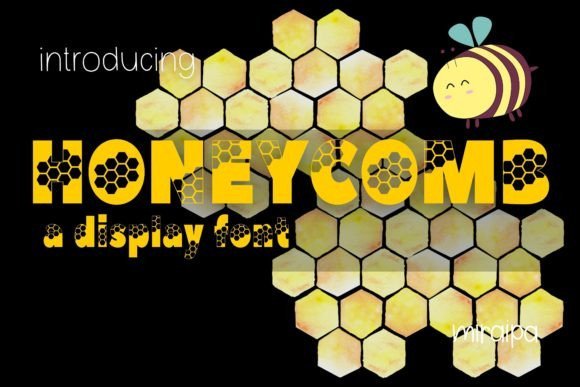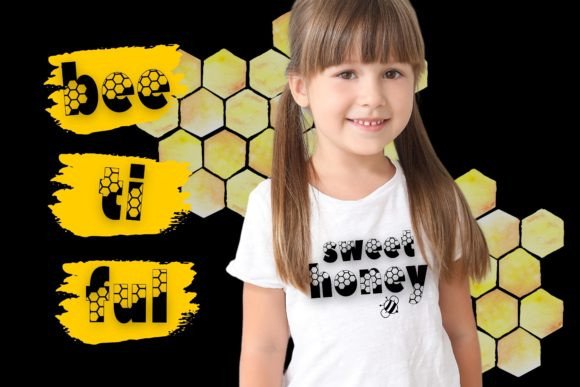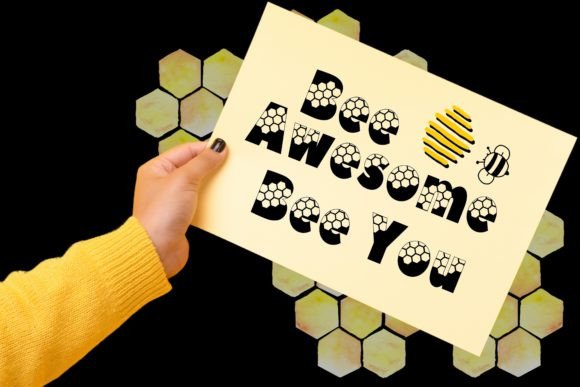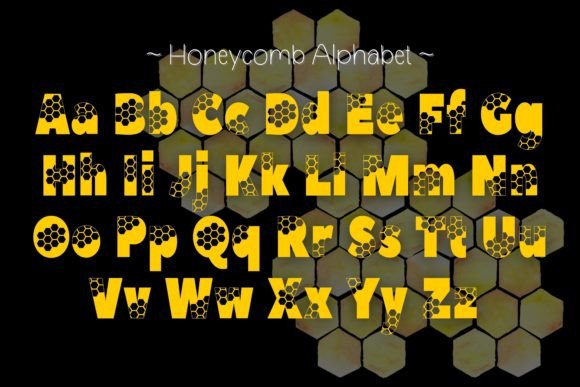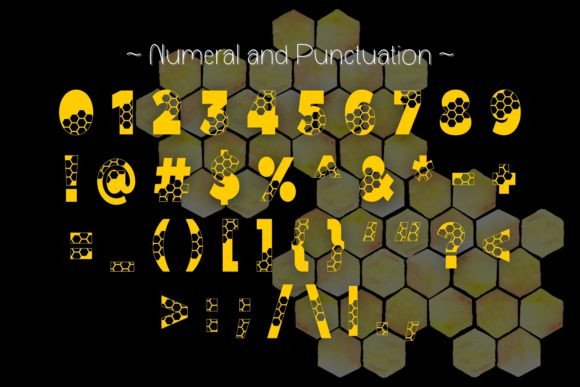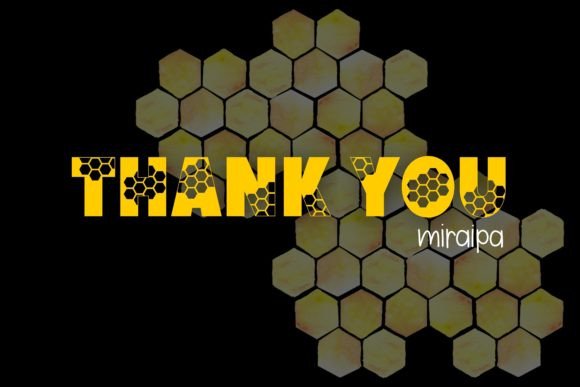
The Sweet Allure of the Honeycomb Font
Have you ever found yourself lost in the world of typography, searching for that perfect font to bring your creative vision to life? Perhaps you’re designing a children’s book, crafting a wedding invitation, or creating a social media campaign for a family business. Whatever your project may be, the right font can make all the difference.
Enter the Honeycomb Font, a delightful and whimsical decorative font that’s sure to capture the hearts of designers and non-designers alike. With its playful, hexagonal design, this font is perfect for adding a touch of sweetness and charm to your projects. Whether you’re working on a women’s magazine, a children’s educational program, or a school-themed event, the Honeycomb Font is the perfect addition to your design arsenal.
For designers, the Honeycomb Font offers a unique opportunity to add a personal touch to their work, setting their projects apart from the rest. Its versatility and charm make it a valuable asset in any designer’s toolkit, and its playful design is sure to bring a smile to the faces of those who see it.
Honeycomb Font Key Features
- Font Style: Honeycomb is a sans-serif, geometric font.
- Unique Characteristics: Honeycomb’s distinctive geometric shape and clean lines make it ideal for modern and minimalist designs, while its high x-height ensures excellent readability.
Honeycomb Font Review
Overall, the Honeycomb font is a visually striking and playful design. ✨ Its unique, hexagonal structure makes it stand out from more traditional fonts. The font is available in various weights, from light to bold, which adds to its versatility.
Here are some of the things that work well with the Honeycomb font:
- ✨ Versatility: As mentioned, the font is available in various weights, making it suitable for a wide range of applications, from body text to headings.
- ✨ Uniqueness: The Honeycomb font’s hexagonal structure gives it a distinctive look that can add visual interest to designs.
- ✨ Legibility: Despite its unconventional structure, the font is surprisingly legible, making it suitable for body text.
- ⚠️ Limited language support: The font may not be optimized for languages that require a lot of diacritical marks or other special characters.
- ⚠️ Limited use for small text: The font’s hexagonal structure can make it difficult to read in small sizes.
Overall, the Honeycomb font is a great choice for designers who want to add some visual interest to their designs. However, it may not be suitable for all applications, particularly those that require a lot of text or small font sizes.
Tips for Getting the Most Out of Honeycomb Font
Use Honeycomb Font for creative and modern designs. Pair it with bold colors and geometric shapes to create visually appealing graphics. Experiment with different font sizes and colors to add depth and interest to your designs.
Honeycomb Font is ideal for social media graphics, branding materials, and advertising campaigns. Use it to create eye-catching headings, logos, and product labels that stand out from the crowd.